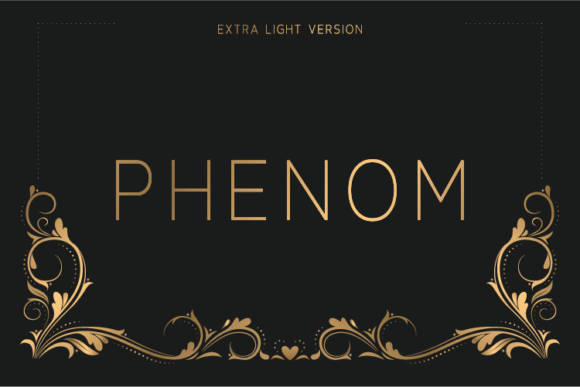
Immerse yourself in the captivating world of typography with Phenom Extra Light, a breathtaking sans serif font family that will transform your designs into masterpieces. Created by the talented Nan Design, Phenom is not just a font; it's an artistic expression that dances across your designs, leaving a trail of elegance and sophistication.
With its perfectly balanced combination of smooth curves and sharp edges, Phenom Extra Light exudes a timeless appeal that transcends trends. Its regular and outline versions offer a versatile range of possibilities, allowing you to craft designs that resonate with your unique vision.
Whether you're a seasoned designer or a passionate hobbyist, Phenom Extra Light will ignite your creativity and elevate your projects to new heights. Its versatility makes it an ideal choice for a wide range of applications, from branding and web design to print and social media graphics.
Experience the allure of Phenom Extra Light today and unlock a world of typographic possibilities. Let your designs bloom with beauty and distinction as you harness the power of this extraordinary font family.